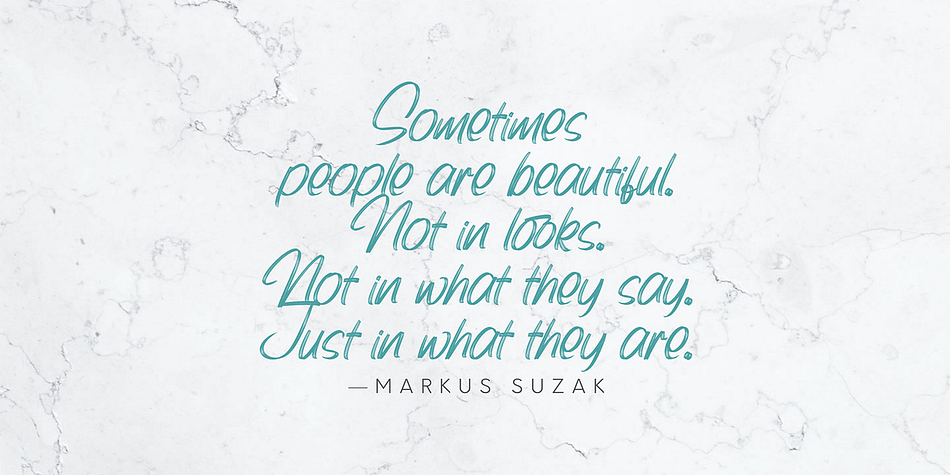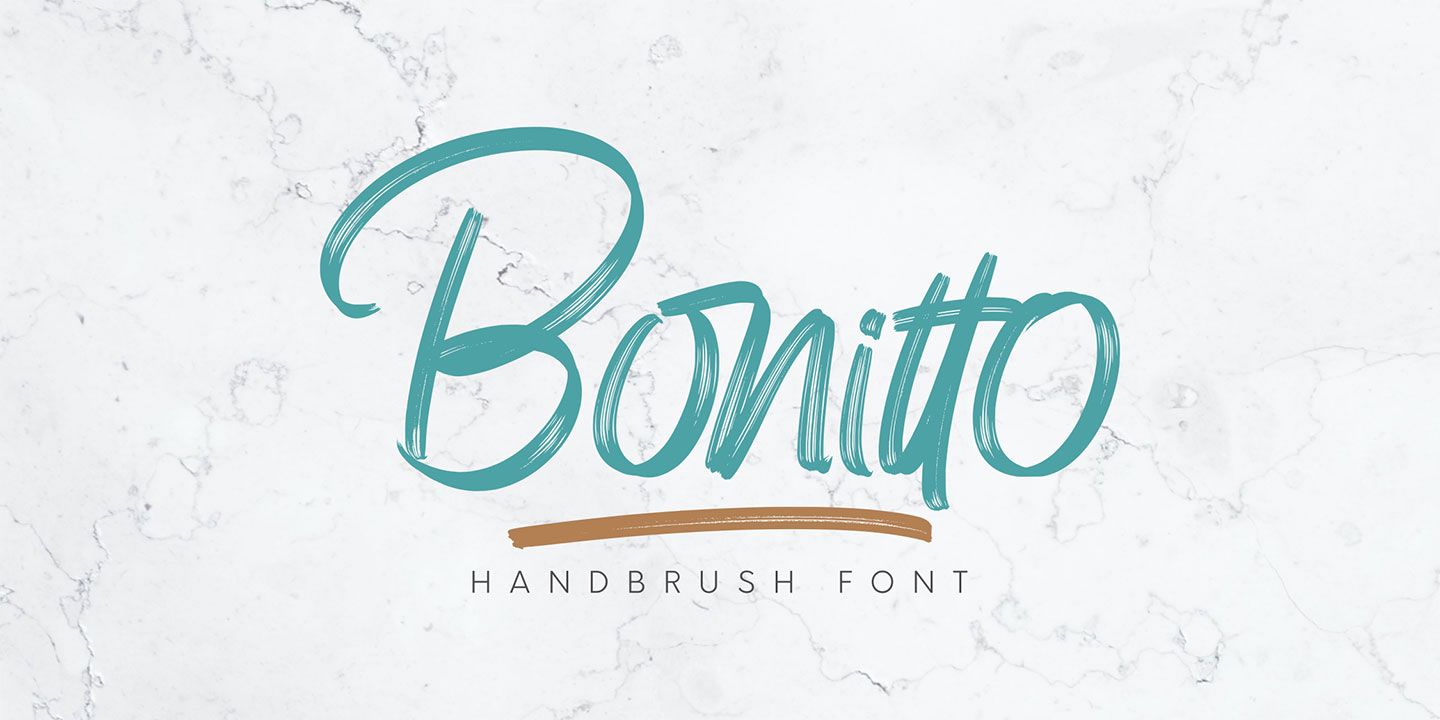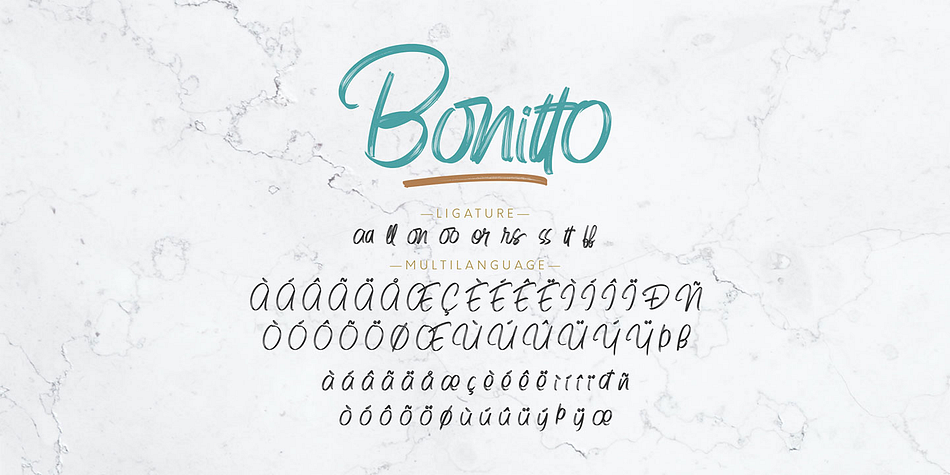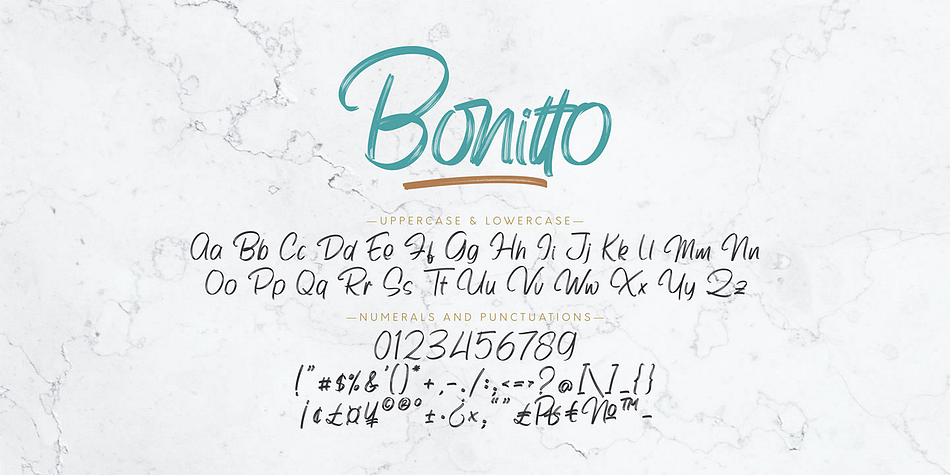
Bonitto
Bonitto is a brush script font family. This typeface has two styles and was published by Omotu Studio.
Bonitto! A handwritten script font with 2 styles, regular and slant. Bonitto font is suitable for branding, logotype, apparel, T-shirt, Hoodie, product packaging, quotes, flyer, poster, advertising, etc.
- Uppercase and lowercase characters
- Supports international languages
- OpenType Features: ligatures
Style Brush Script